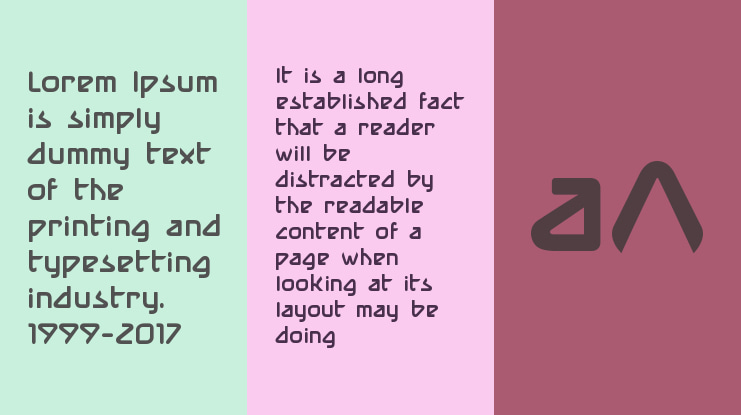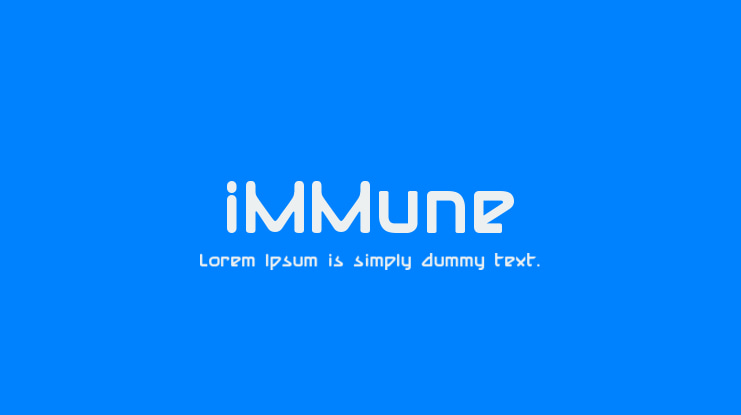
iMMune Font
evolution-rielaboration of another my old font (not on line - issued: signiMM). Complete base set of latin character but is to free download without some special character of the set. few! very few, just some very special glyphs not so necessary for common use. this glyphs has been replaced by with my logo